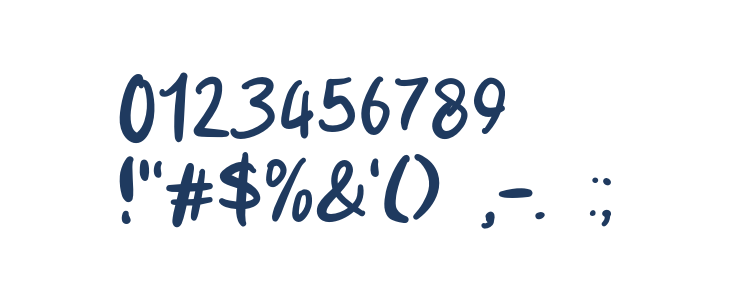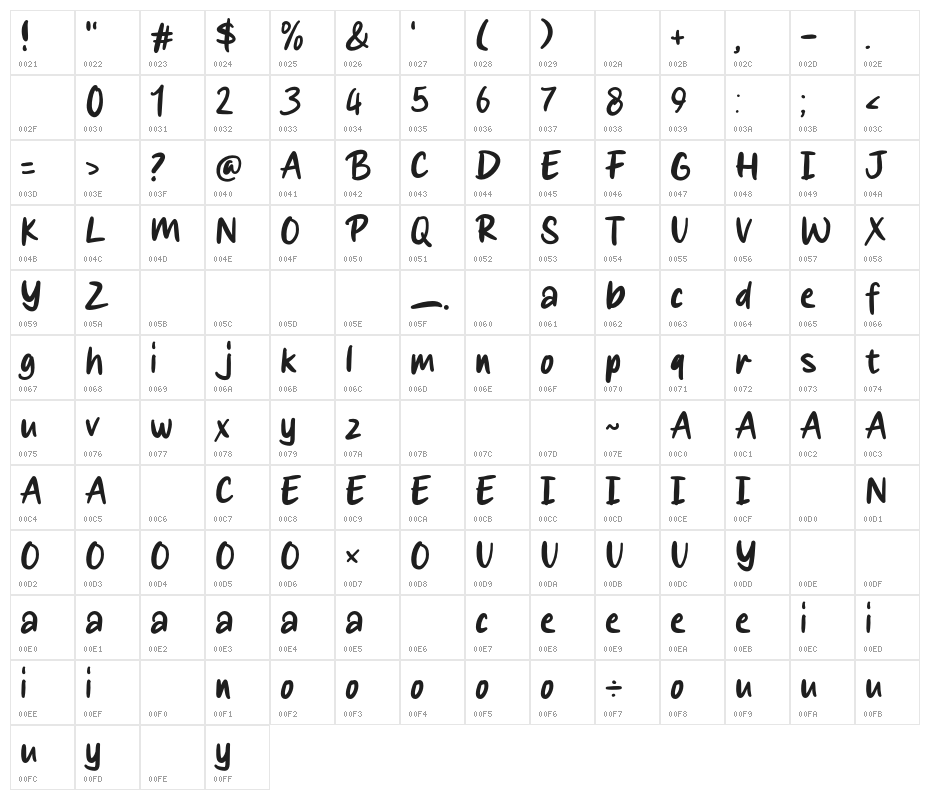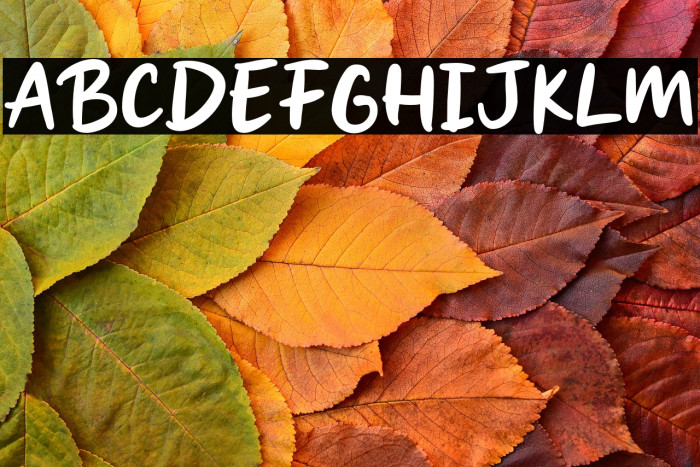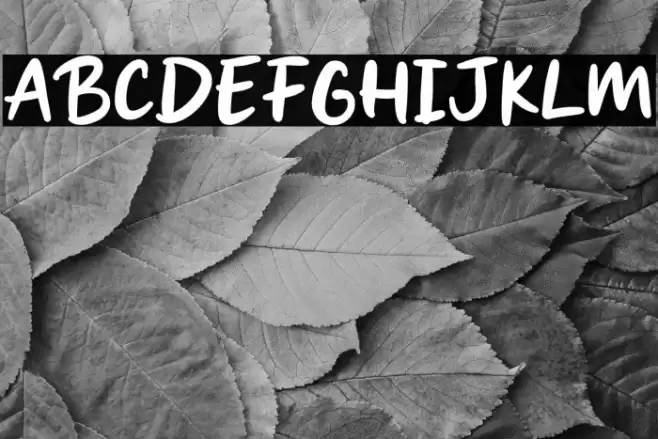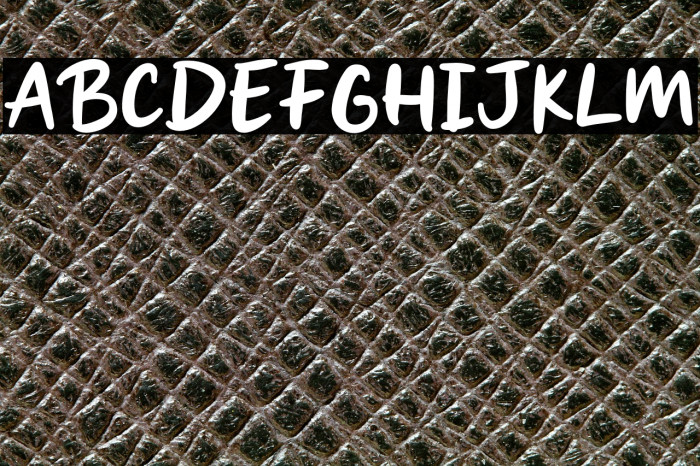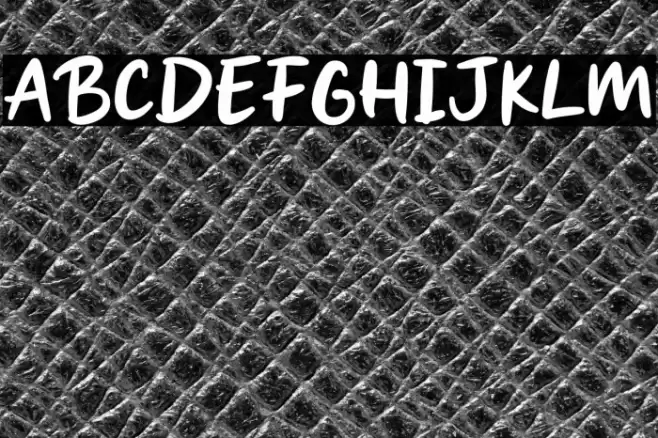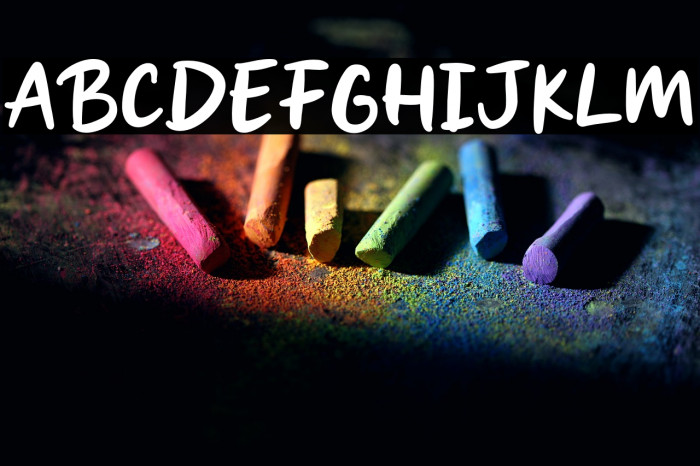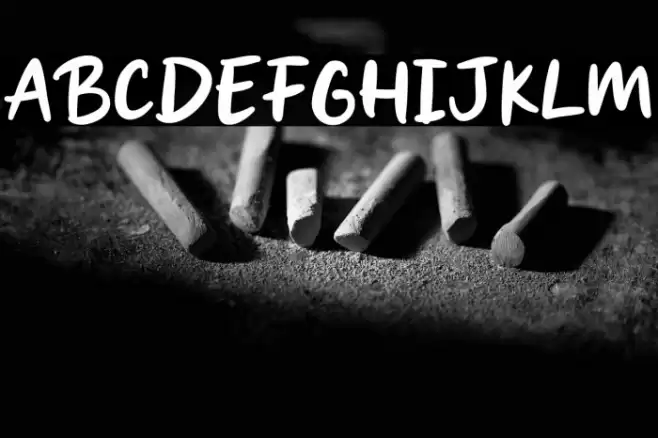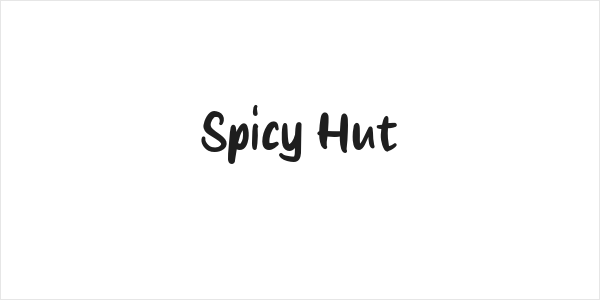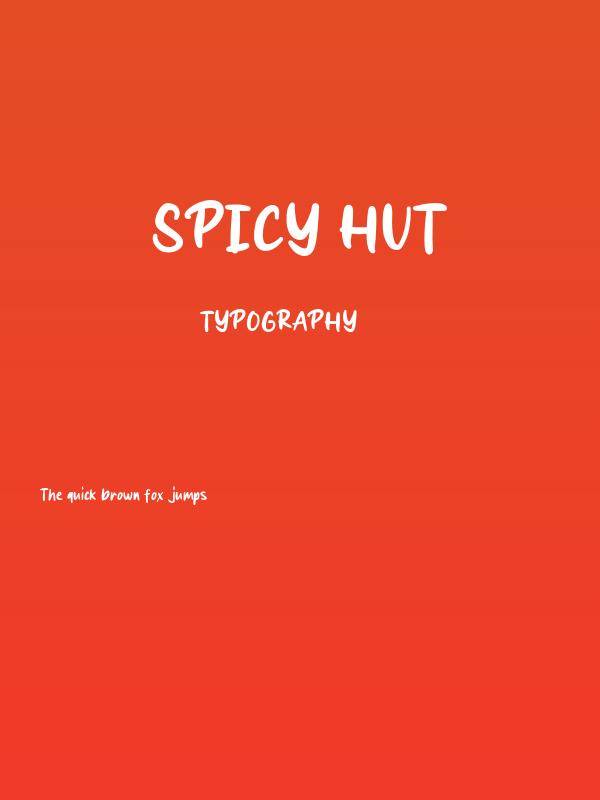
Spicy Hut Font
Spicy Hut Description
This font exudes a playful and energetic vibe with its bold and slightly irregular strokes, reminiscent of casual handwriting. The characters are rounded and have a lively bounce, giving the text a friendly and approachable feel. The uppercase and lowercase letters maintain a consistent style, with a slight slant that adds to the dynamic appearance. The numbers and special characters are equally expressive, ensuring a cohesive look across all text elements. This font is perfect for projects that require a personal touch or a sense of fun and creativity.
| Proposed Projects | Ideal for greeting cards, children's books, playful branding, and social media graphics. |